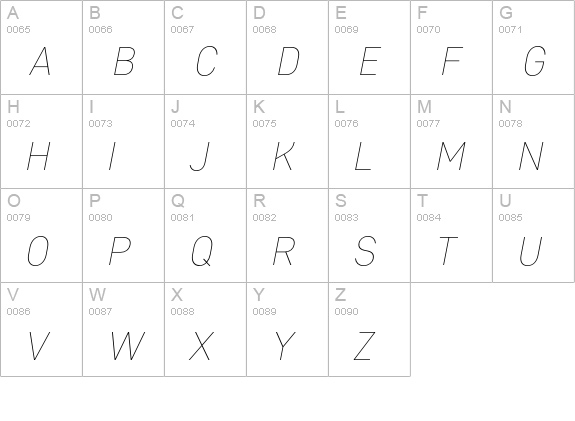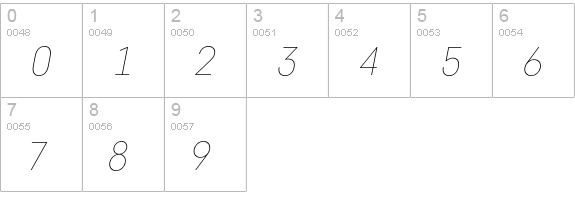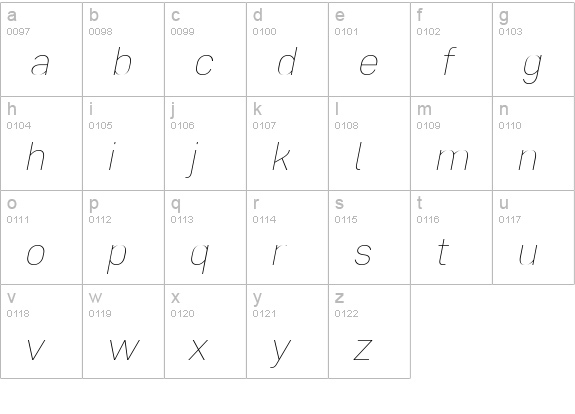
Core Sans D 15 Thin Italic Font Details
Core Sans D 15 Thin Italic is a delicate, low-contrast, italic variant in the Core typeface family \xE2\x80\x94 well suited to fashion editorial, minimal branding, and high-contrast display.
Core Sans D 15 Thin Italic font is a sleek and elegant typeface designed for modern and sophisticated designs. With its thin strokes and slanted italics, this font exudes a sense of refinement and sophistication. Perfect for adding a touch of class to any project, Core Sans D 15 Thin Italic is versatile and eye-catching. The best part? This stunning font is completely free to download at FontsMarket.com. That's right, you can elevate your designs with this stylish typeface without spending a dime. Whether you're working on branding materials, editorial layouts, or web design, Core Sans D 15 Thin Italic is sure to make a statement. Download it today and add a touch of elegance to your projects!